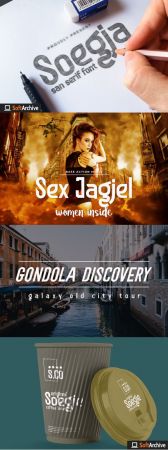
Soegja is a clean sans serif font, with a modern and trendy style. Its versatile feel makes it suitable for a wide variety of design projects, formal or non-formal ones. Get inspired with Soegja and create authentic, beautiful designs!